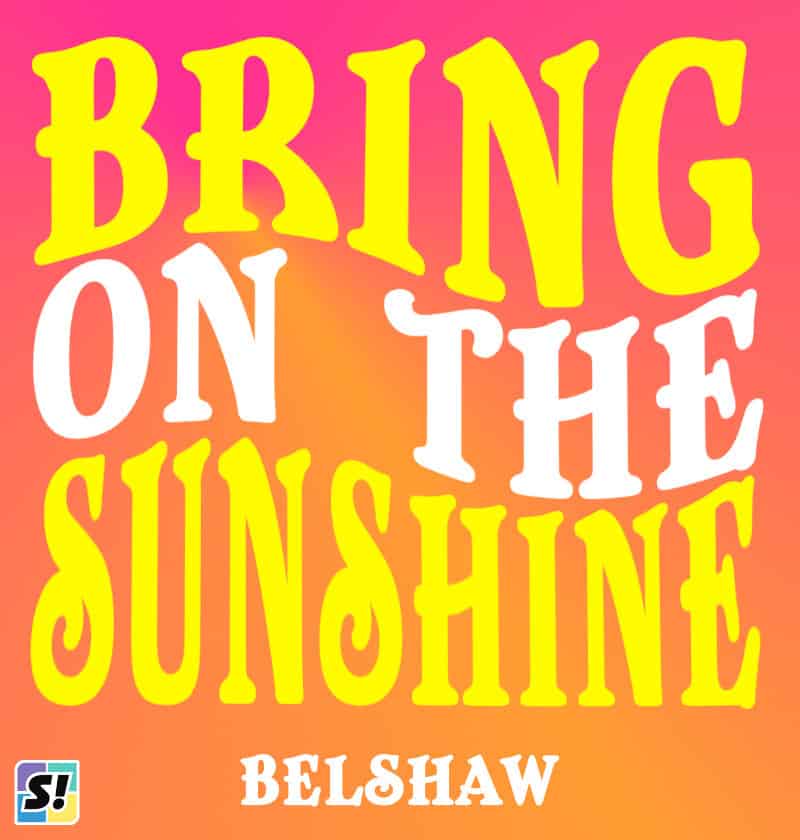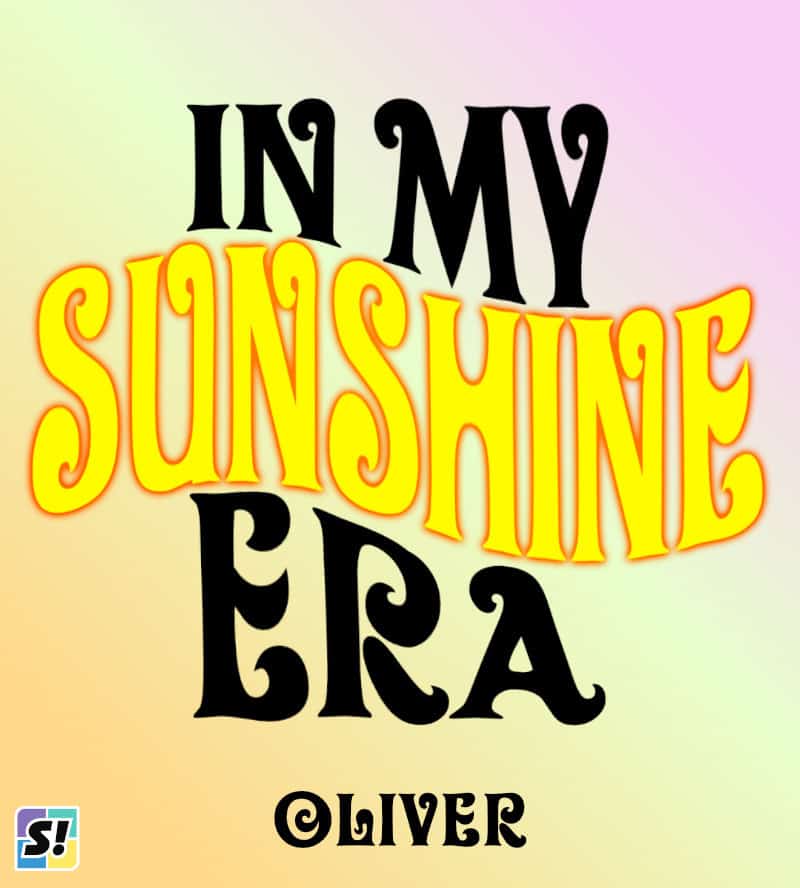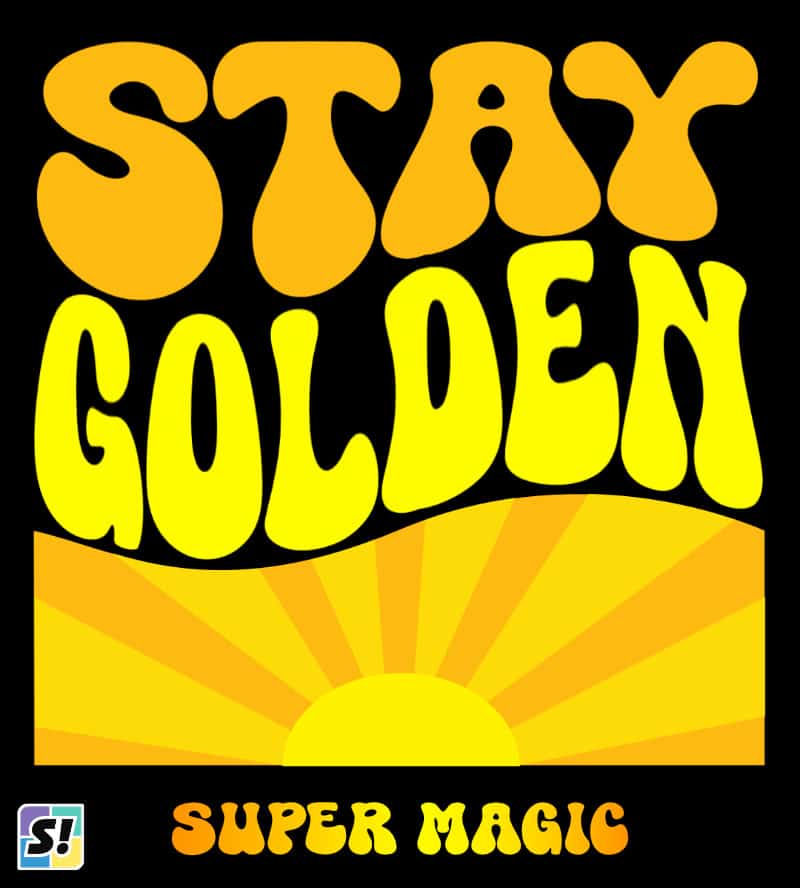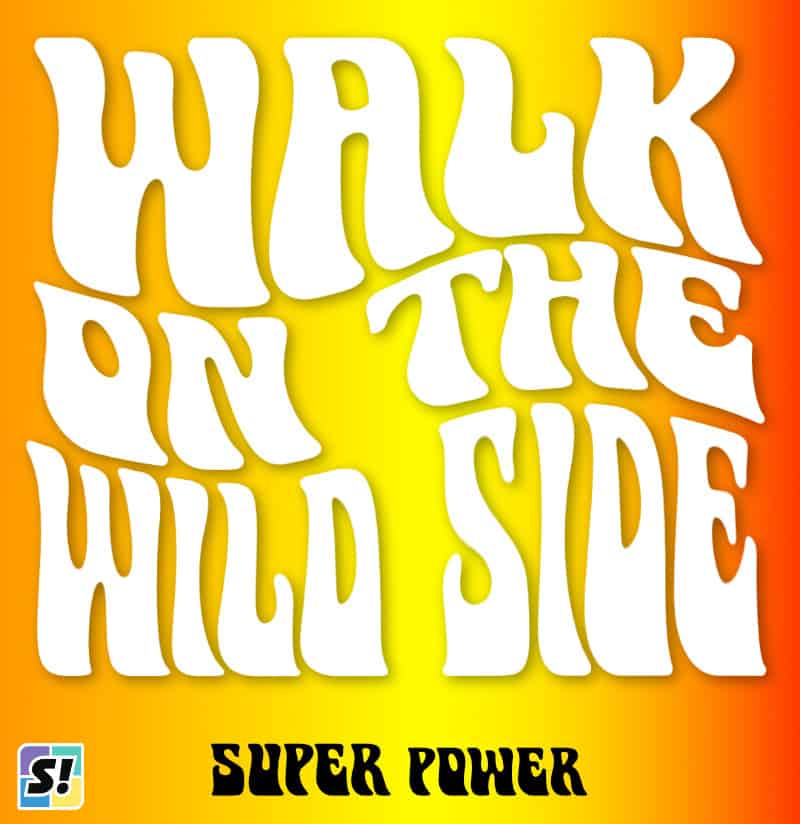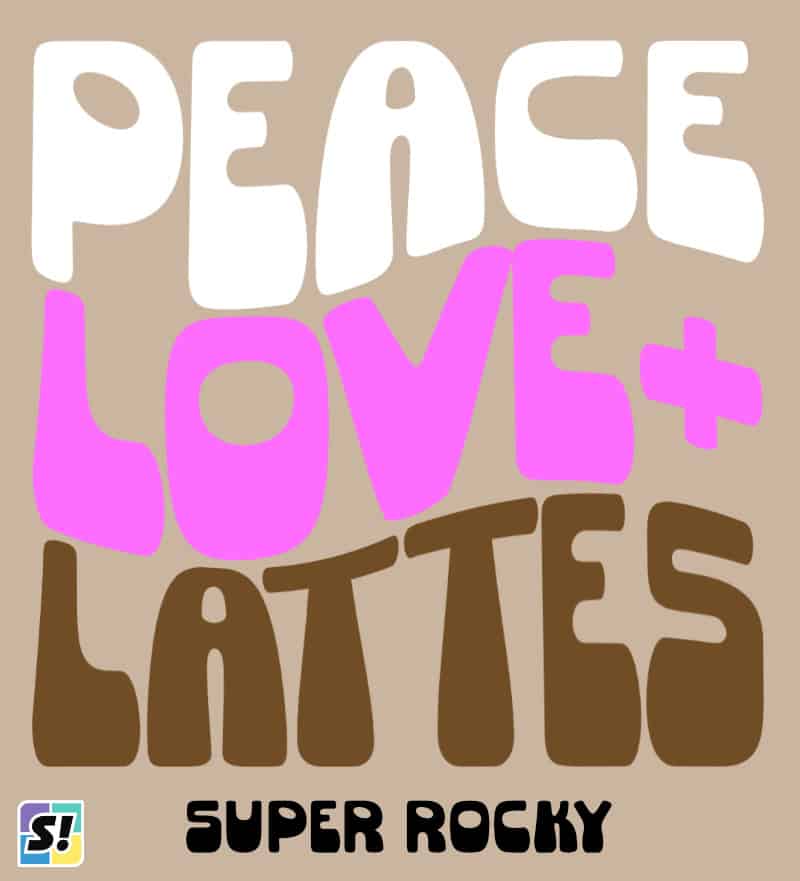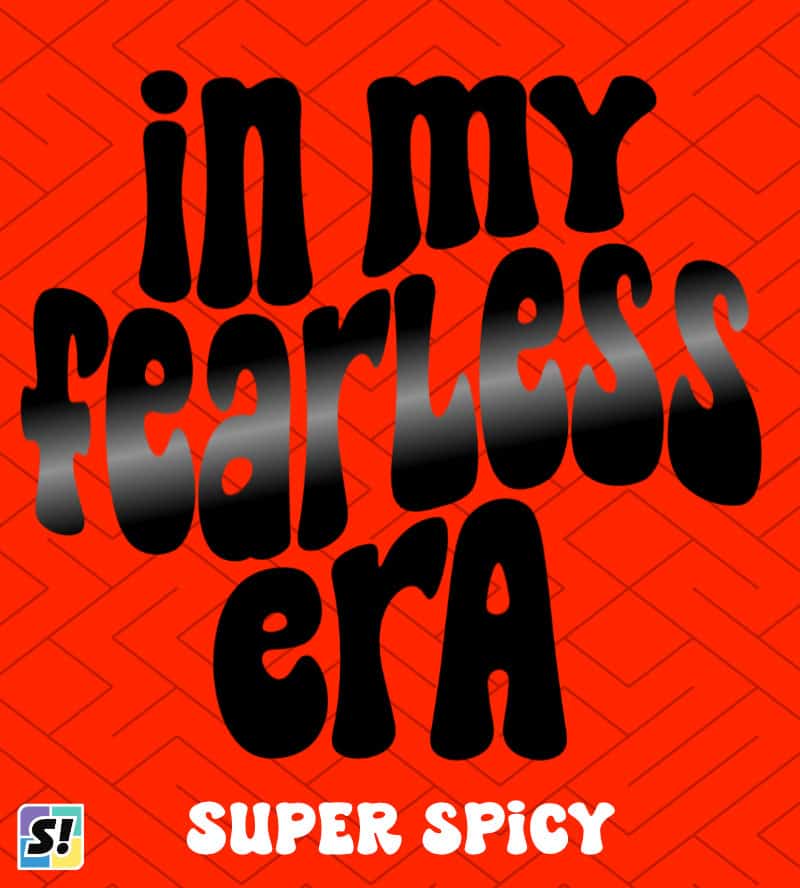
20 Groovy Fonts for Wavy Stacked Text
The popularity of wavy stacked text designs has given me an excuse to use the fattest, funkiest, grooviest fonts I can find to make delightful retro t-shirts, totes, and pillows. They’re a perfect match for puff vinyl, too!
This list of my favorite bold, chunky, far-out fonts is a companion to my wavy stacked text tutorial. They look cool on their own, but these fonts were chosen specifically because they look great warped! I’ve created a wavy stacked design for each font to show you their potential.
All Super Font Collection
Super Funky
Groove is in the Heart wavy text design using Super Funky font
Super Funnel
Coffee make me Happy stacked wavy text using Super Funnel font
Super Dream
Peace Love & Pizza wavy stacked text design showing Super Dream font
Super Magic
Stay Golden stacked wavy text + sun image, featuring Super Magic font
Super Power
Walk on the Wild Side warped text using Super Power font
Super Rocky
Peace Love & Lattes wavy stacked text in Super Rocky font
Super Spicy
In my Fearless Era stacked text design using Super Spicy font
Super Summer
In my summer vacay era warped text design featuring Super Summer font
Groovy retro fonts with various designers
Abstract Groovy (by Wahyu Eka Prasetya)
I love this font, it has little highlights that make it look shiny! This is very similar to the BFC Grape Jelly font in Design Space. Free for personal use only.
Summer Vibes Only wavy stacked text using Abstract Groovy font
Keep on Truckin’ (by Brad O. Nelson, Brain Eaters Font Co.)
I know you’ve seen this one before, the king of wavy stacked text designs. Free for personal use.
Classic Groovy Vibes 3 line wavy stacked text in Keep on Truckin' font
Belshaw (by Dieter Steffmann)
A little unusual, but I love the retro vibe. Free for commercial use.
Bring on the Sunshine wavy stacked text using Belshaw font
Coaster (by Dieter Steffmann)
Lovely basic thick font that waves really well. Free for commercial use.
In my Beachy Era warped text design using Coaster font
Excalibur Nouveau (by Typo-Graf)
A very cool Art Nouveau-inspired font that also looks great warped, free for commercial use.
Beach Hair don't Care wavy stacked text with Excalibur Nouveau font
Flames (by OutsideInside Fonts)
Art Nouveau-inspired psychedelia, it doesn’t get more Hendrix than this one. Free for commercial use.
Funky Groovy Vibes warped text using Flames font
LT Glockenspiel (by Daniel Lyons, LyonsType)
Another Art Nouveau-inspired font, the Os in this one look totally cool when warped. Free for commercial use.
Funky Groovy Chill wavy text design using LT Glockenspiel font
Mama (by Rick Mueller)
Very cool heavyweight psychedelic font that looks great waved. Free for commercial use.
Happiness Comes in Waves stacked text design using Mama font
Spicy Rice (by Brian Bonislawsky, Astigmatic One Eye Typographic Institute)
This font is included in Kerri’s article about cutting tiny letters with a Cricut – it’s thick enough to work at 0.25″ or less line height. But it also looks great as a big wavy Wonka-style typeface, and it’s free for commercial use.
Magical Mystery Tourist wavy stacked text using Spicy Rice font
Storybook (unknown creator)
Another very vintage style that looks lovely as wavy stacked text, this one is also free for commercial use.
Original Vintage Parts warped design using Storybook font
Oliver (by Christine Mauerkirchner and Rainer Grunert, PrimaFont)
Fun, curly font that looks amazing warped. Free for commercial use.
In my Sunshine Era wavy text design using Oliver font
Big Top (by Jeroen Klaver, Shamrock)
A little unusual, but I think this font looks super cool in warped designs. Free for commercial use.
Welcome to the Circus wavy text using Big Top font